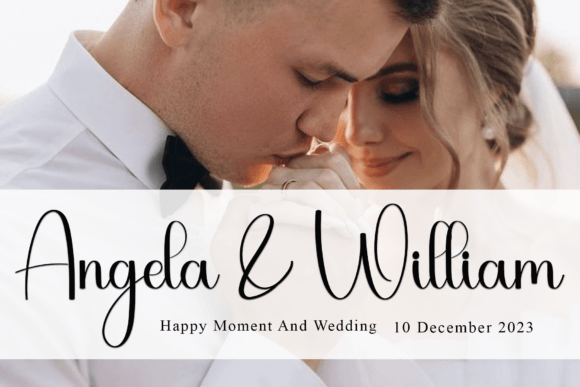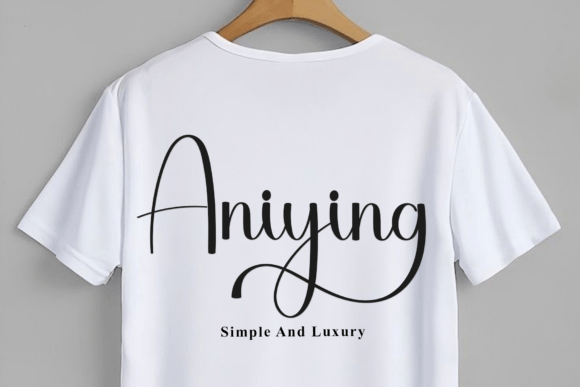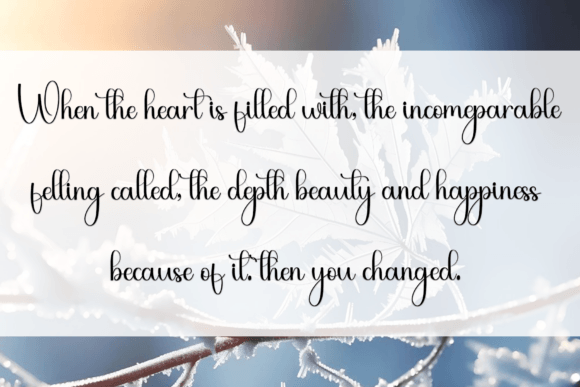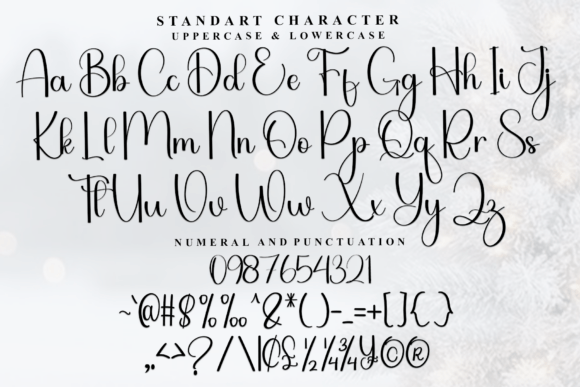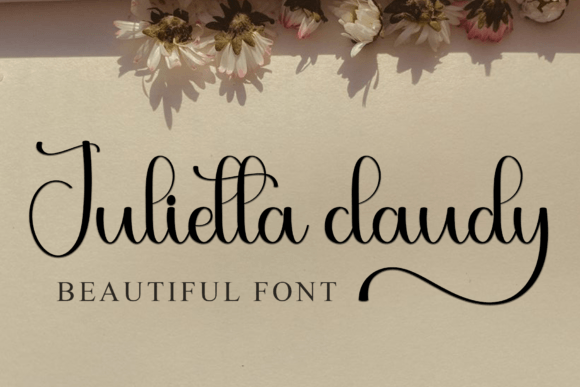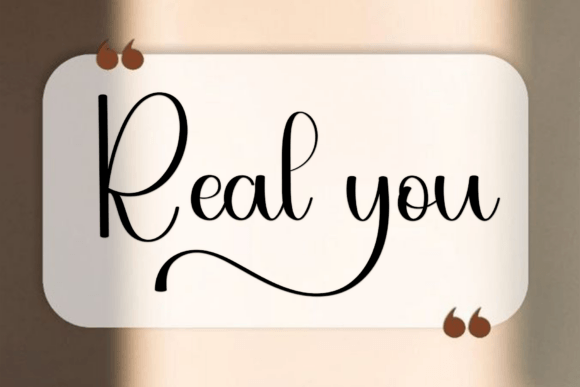
Diving Font: Elevate Your Designs with Elegance and Charm
Are you a designer or crafter looking for a font that can add a touch of sophistication and beauty to your work? Look no further than Diving Font, a lovely script font that features smooth, flowing letters that exude elegance and style. In this article, we’ll dive into the world of Diving Font and explore its features, benefits, and uses.
What is Diving Font?
Diving Font is a script font that boasts a unique and captivating design. Its smooth, flowing letters are carefully crafted to create a sense of movement and fluidity, making it perfect for designs that require a touch of elegance and charm. Whether you’re working on an invitation, logo, or any other design project, Diving Font is sure to make a lasting impression.
Features of Diving Font
So, what makes Diving Font so special? Here are just a few of its key features:
- Smooth and flowing letters: Diving Font features letters that are carefully crafted to create a sense of movement and fluidity.
- Elegant and stylish: The font’s elegant design makes it perfect for designs that require a touch of sophistication and style.
- Perfect for invitations and logos: Diving Font is ideal for designs that need a touch of elegance and charm, such as invitations, logos, and more.
- Easy to read: Despite its elegant design, Diving Font is easy to read, making it perfect for body text and headlines.
Benefits of Using Diving Font
So, why should you choose Diving Font for your design projects? Here are just a few benefits of using this beautiful font:
- Adds elegance and sophistication: Diving Font can add a touch of elegance and sophistication to any design project.
- Versatile: The font is versatile and can be used for a wide range of design projects, from invitations and logos to headings and body text.
- Unique and eye-catching: The font’s unique design makes it stand out from other fonts, ensuring that your design project will grab attention.
Uses of Diving Font
Diving Font is a versatile font that can be used for a wide range of design projects. Here are just a few ideas:
- Invitations: Use Diving Font to create beautiful and elegant invitations for weddings, parties, and other special occasions.
- Logos: The font’s elegant design makes it perfect for logos that require a touch of sophistication and style.
- Headings and titles: Use Diving Font to add a touch of elegance and charm to headings and titles.
- Body text: The font’s easy-to-read design makes it perfect for body text, ensuring that your readers will stay engaged.
Tips for Using Diving Font
Here are a few tips for using Diving Font in your design projects:
- Use it sparingly: While Diving Font is a beautiful font, it’s best to use it sparingly to avoid overwhelming your design.
- Pair it with other fonts: Experiment with pairing Diving Font with other fonts to create a unique and eye-catching design.
- Adjust the size and color: Adjust the size and color of Diving Font to suit your design needs.
In conclusion, Diving Font is a beautiful script font that can add a touch of elegance and sophistication to any design project. Its smooth, flowing letters and elegant design make it perfect for invitations, logos, headings, and body text. With its versatility, ease of use, and unique design, Diving Font is a must-have font for designers and crafters.